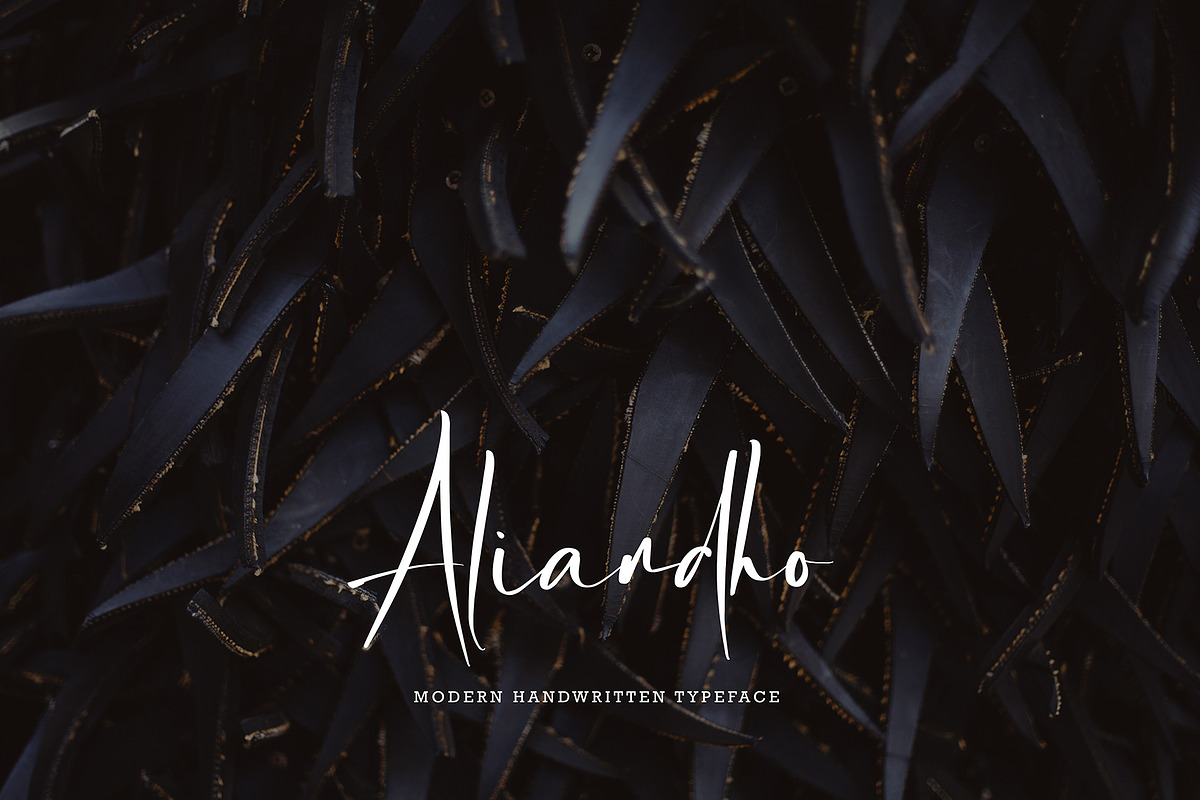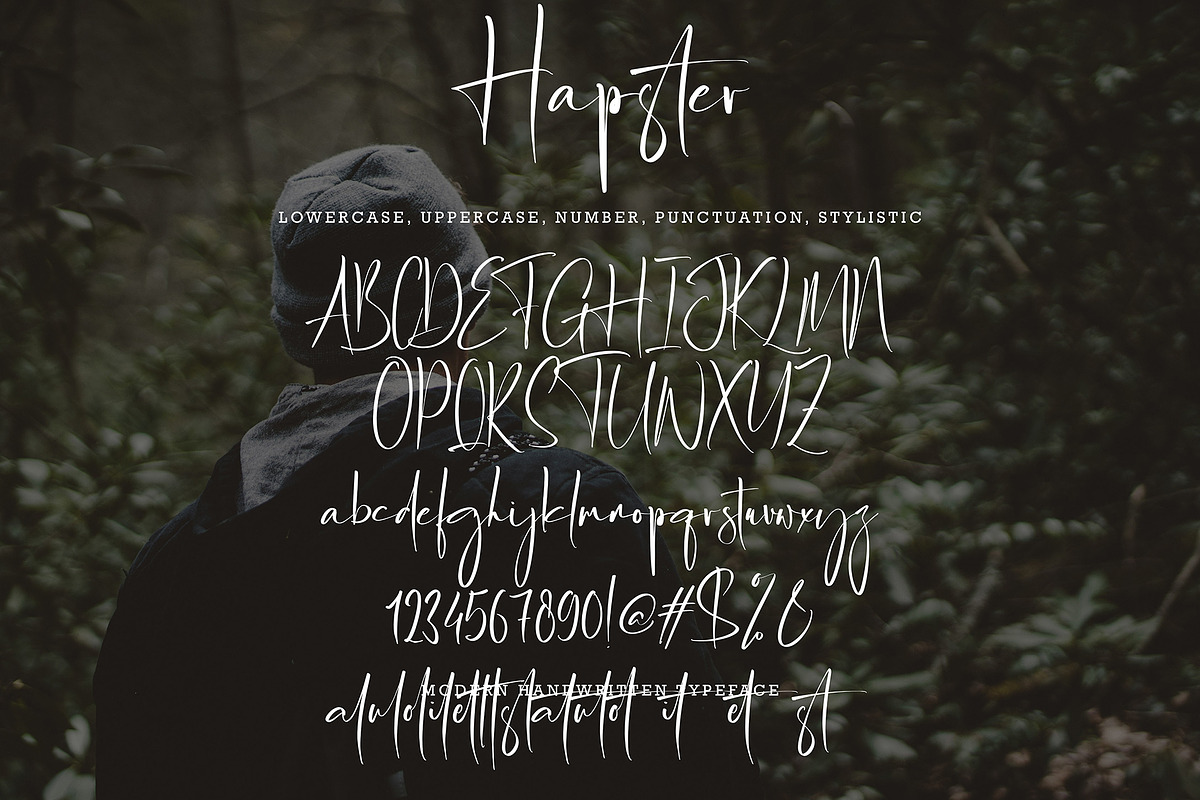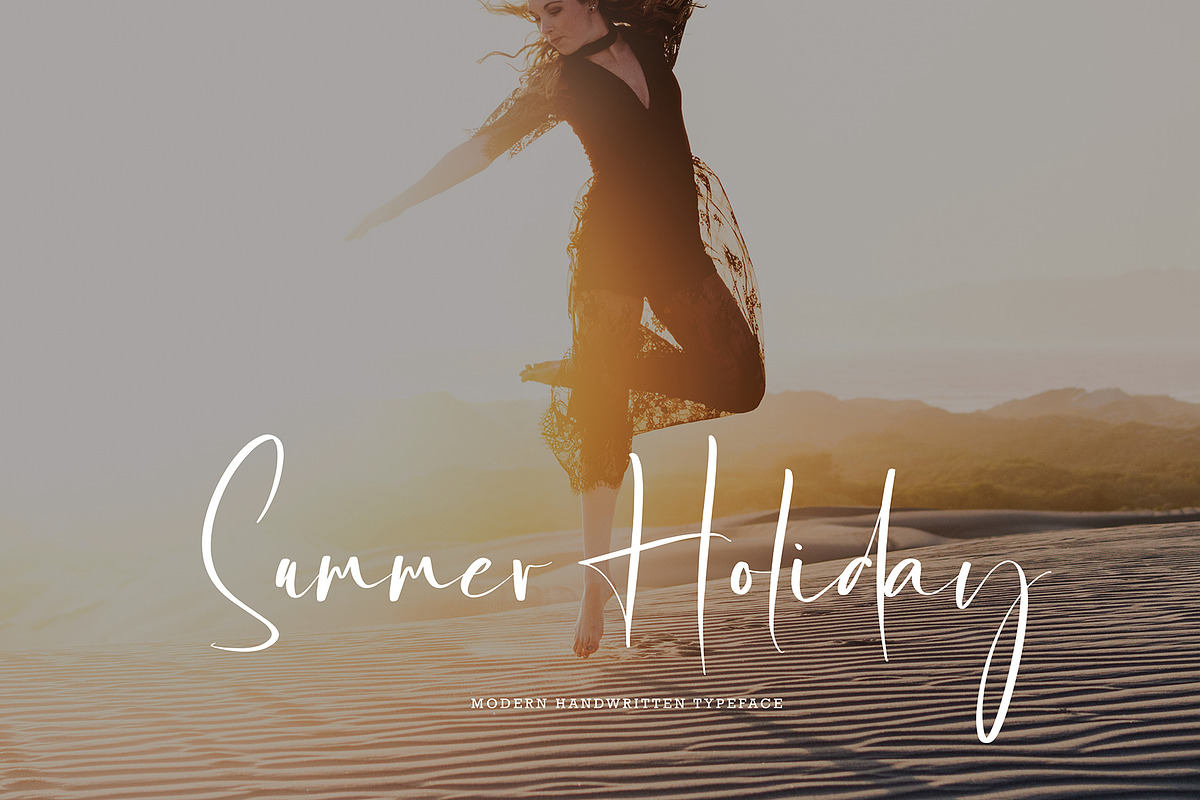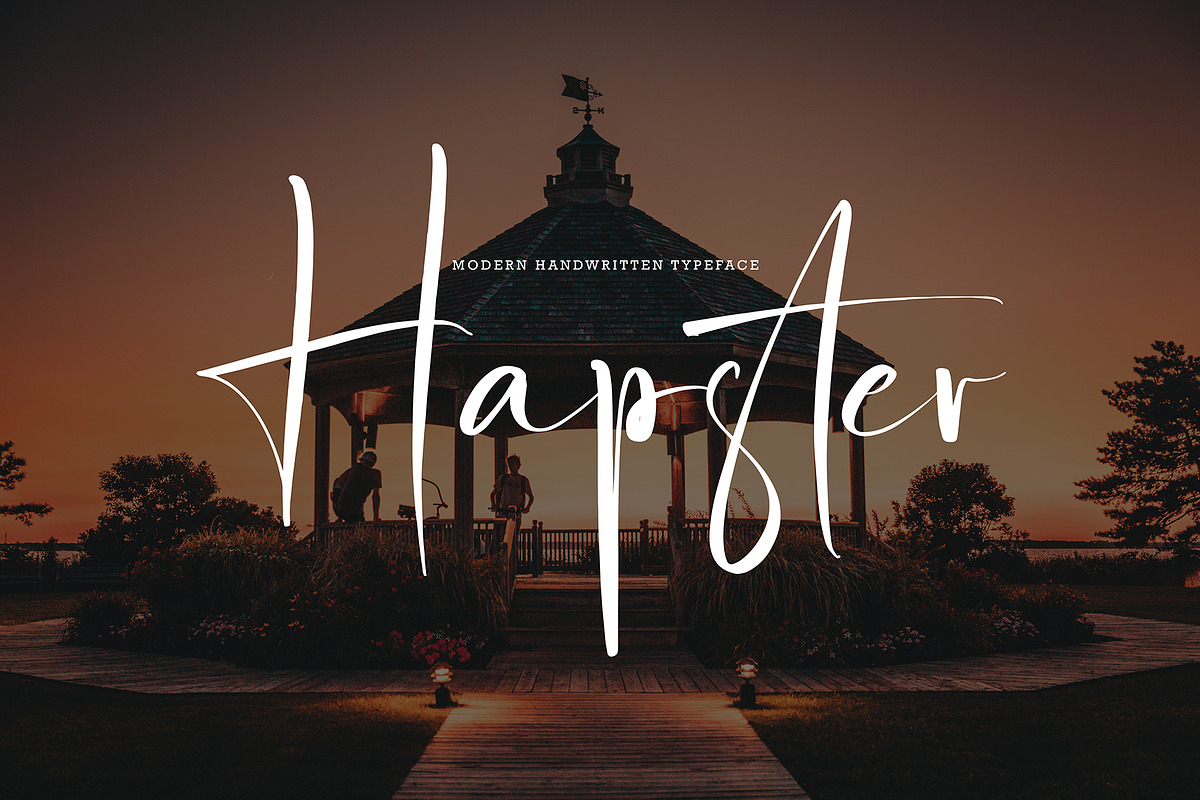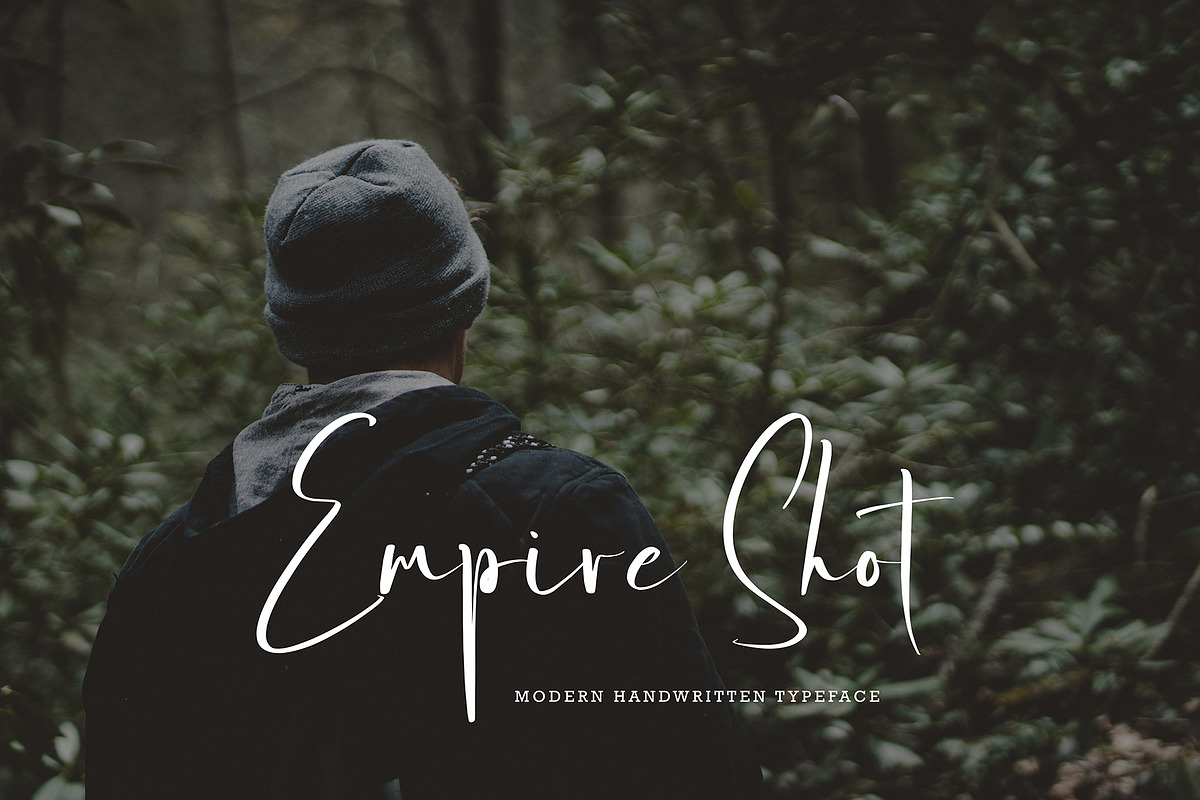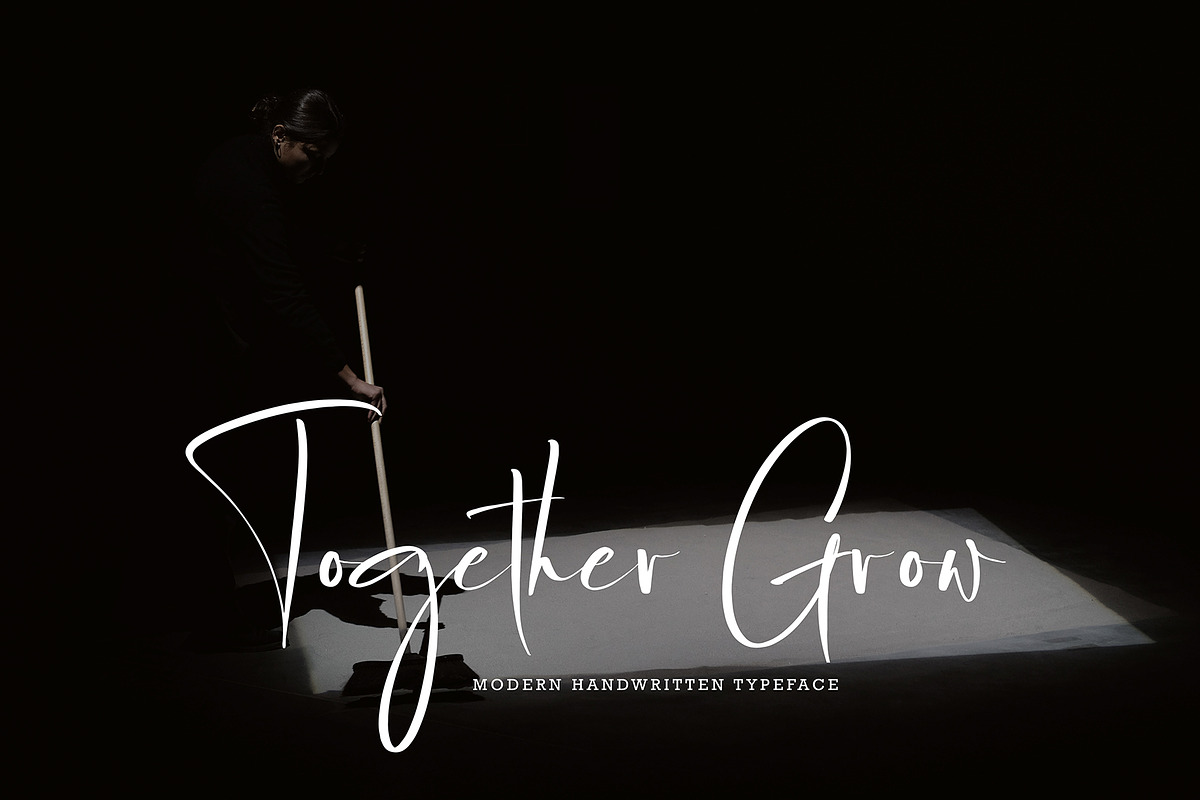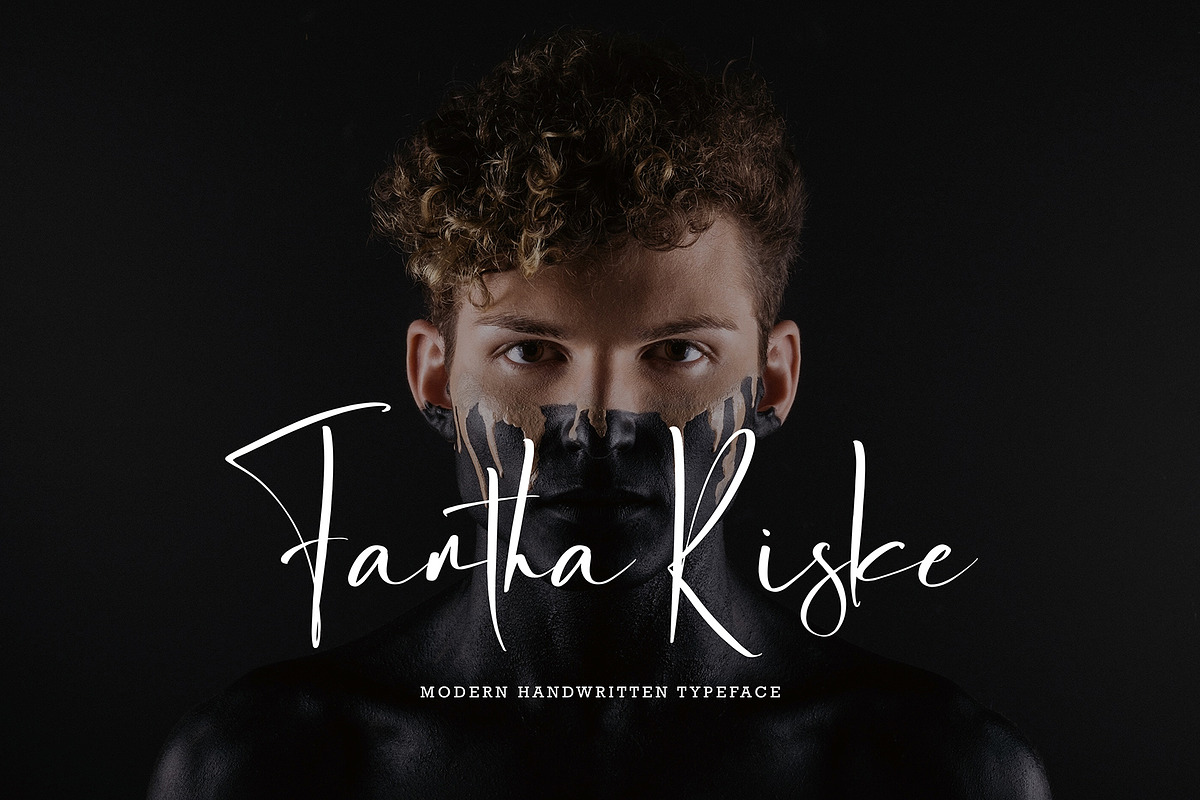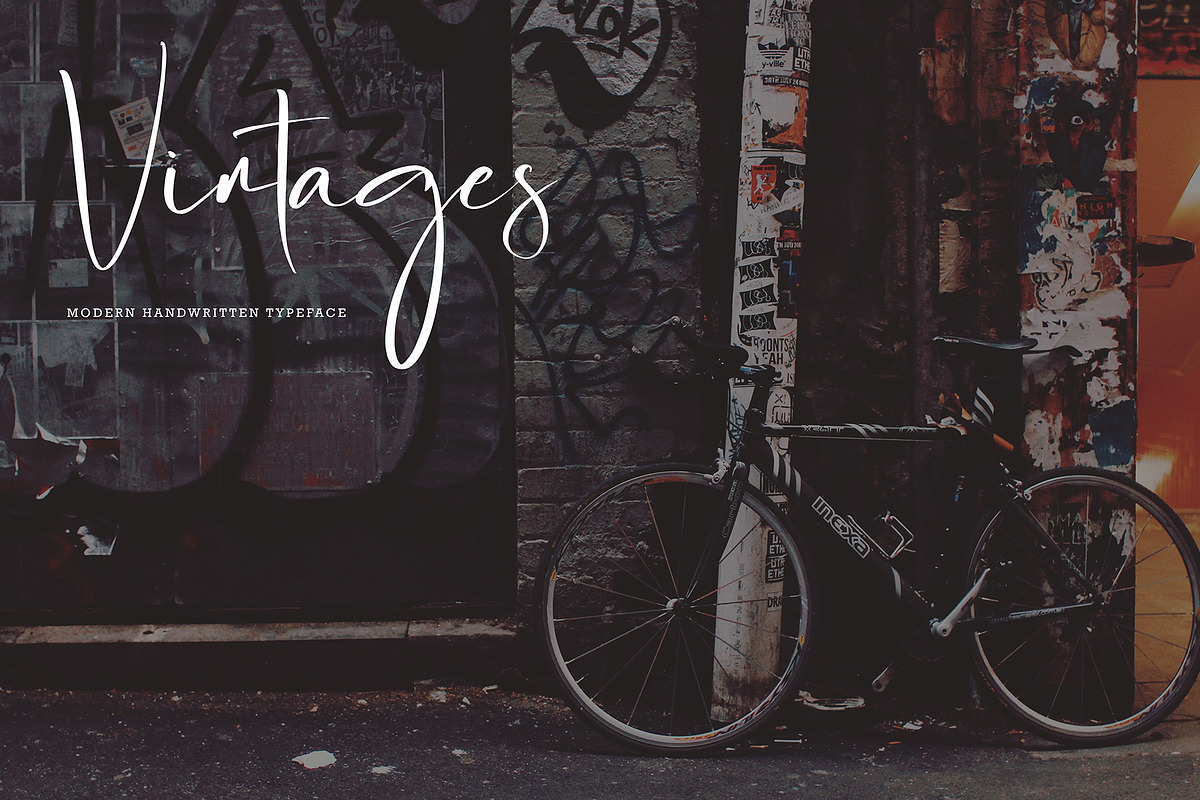
Hapster
Hapster font with new style, this font will perfect for many different project ex: quotes, logo, blog header, poster, banding, letter, invitation, stationery, etc...